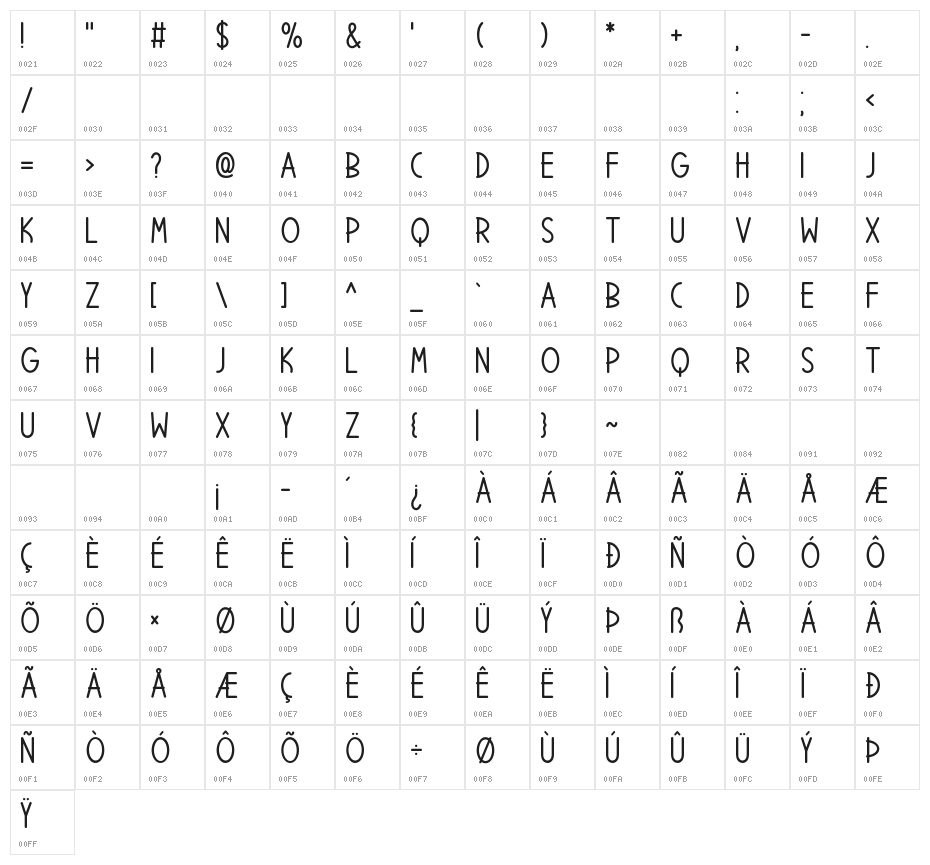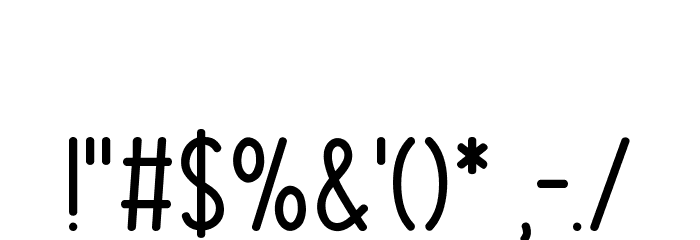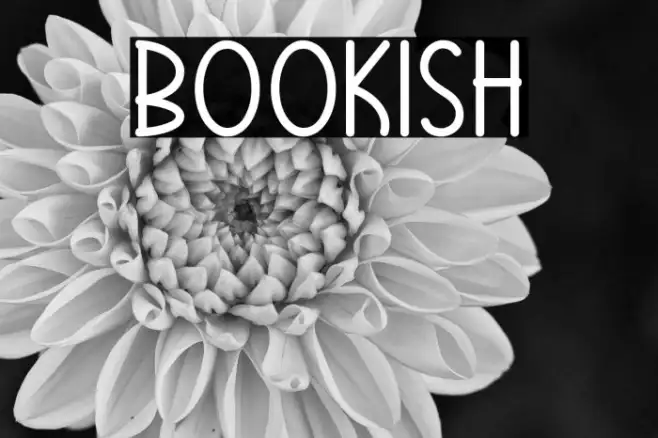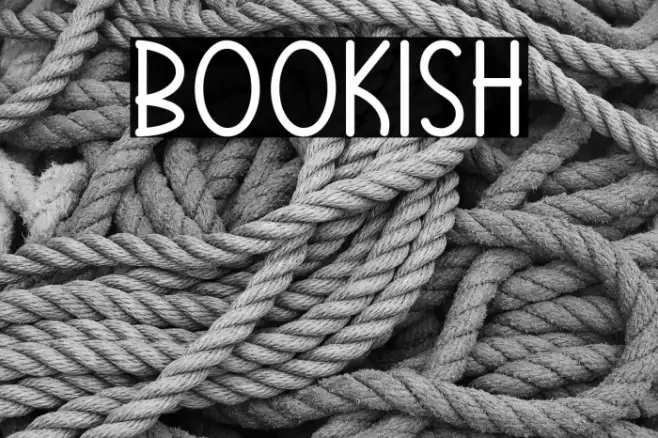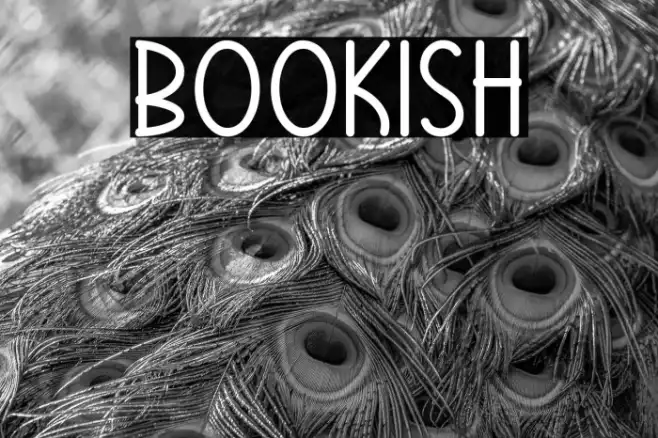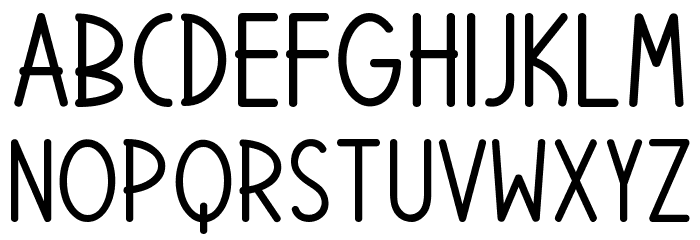
Bookish Font
Bookish Description
This font features a playful and rounded design, characterized by its smooth curves and consistent stroke width. The letters are slightly elongated, giving them a unique and whimsical appearance. The uppercase and lowercase letters maintain a uniform style, with a friendly and approachable aesthetic. The special characters and numbers are designed to match the overall playful theme, making this font suitable for creative and informal applications. Its simplicity and clarity ensure readability while adding a touch of fun to any text.
| Proposed Projects | Ideal for children's books, playful branding, greeting cards, and casual invitations. |